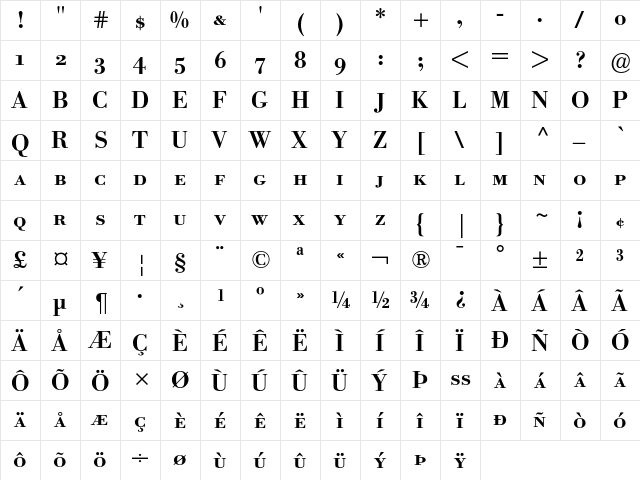
Bodoni BE Medium Small Caps & Oldstyle Figures
Design Context for Bodoni BE Typeface
Bodoni BE brings classic typographic sensibility to the table — its serifs and measured letterforms reflect centuries of print heritage.
Pro Tip: Use Bodoni BE for editorial body copy and considered headline work. Pair with a neutral sans for UI elements or captions to create a classic hierarchy.